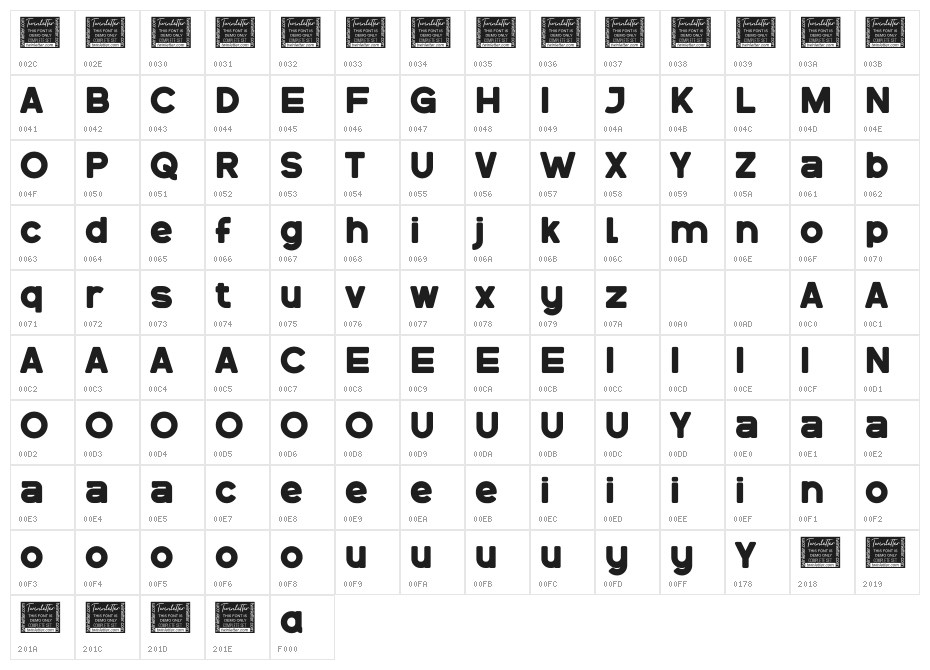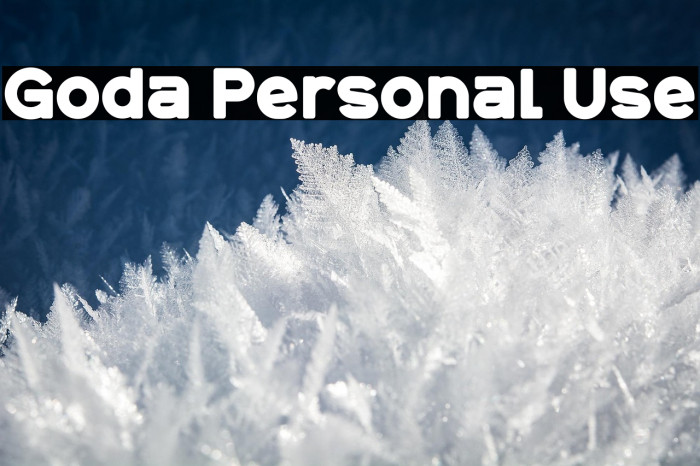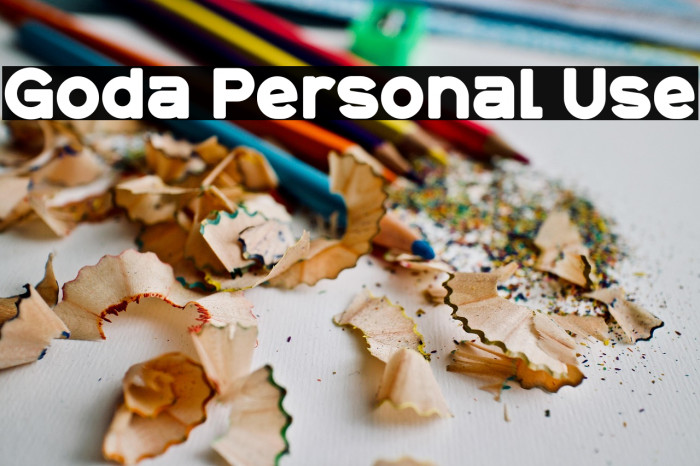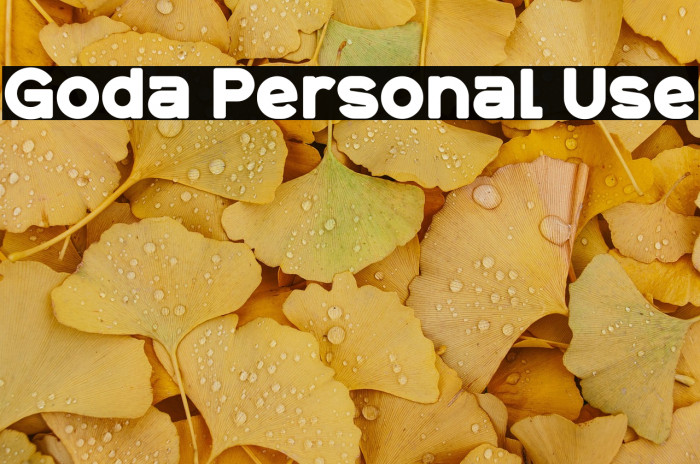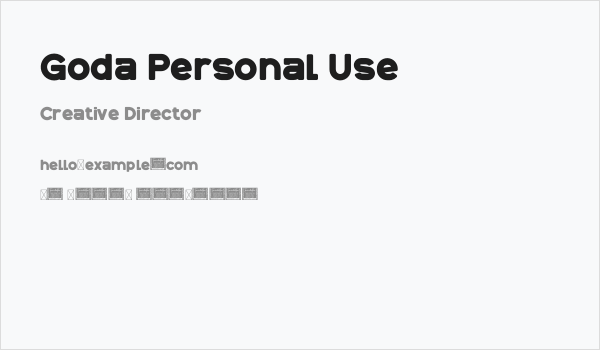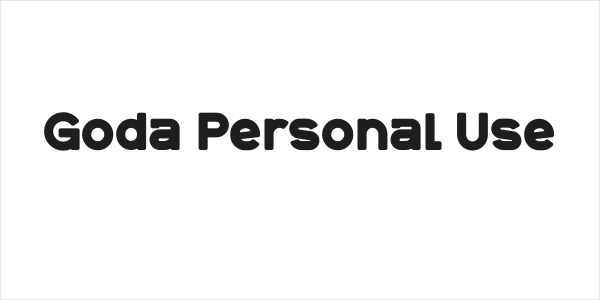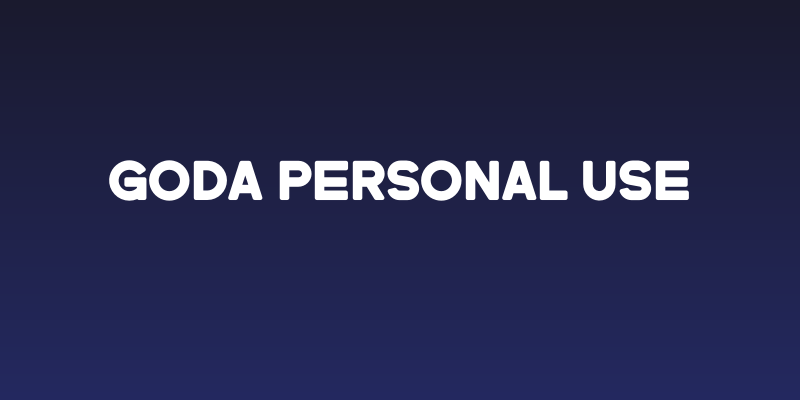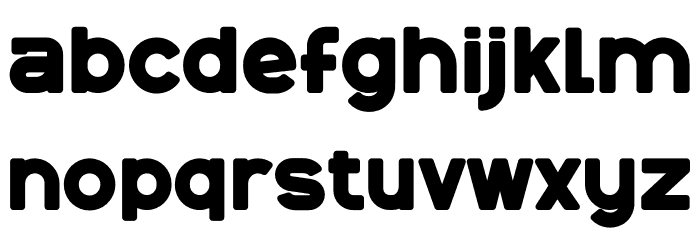
Goda Personal Use Font
Goda Personal Use Description
This font showcases a bold and modern style with rounded edges and a strong presence. The uppercase and lowercase letters are well-proportioned, maintaining a consistent thickness throughout. The characters exhibit a geometric influence, with smooth curves and a uniform stroke width that adds to its contemporary appeal. The numbers and special characters are designed to match the overall aesthetic, ensuring a cohesive look across all elements. Its clean and straightforward design makes it versatile for various applications.
| Proposed Projects | Ideal for branding, headlines, posters, and digital media where a strong, modern presence is desired. |